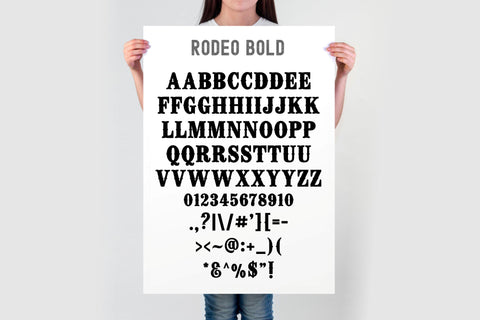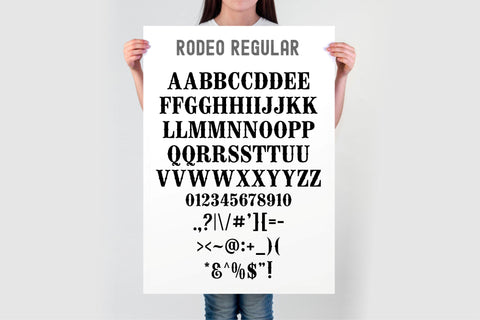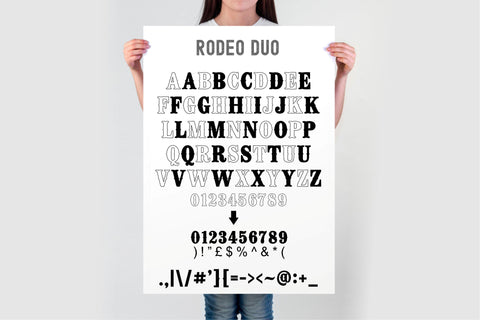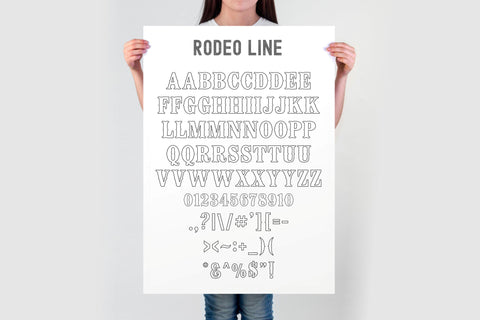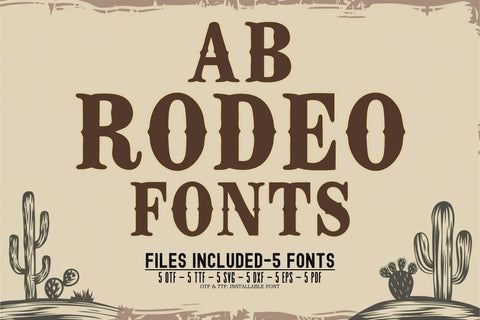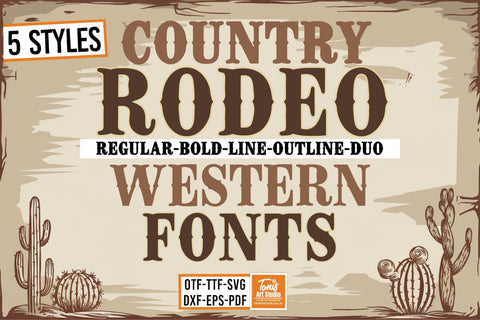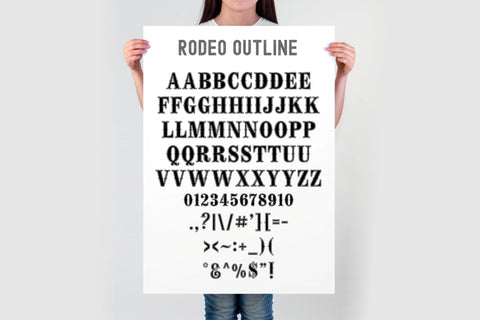
Bring the wild west to life with the "Rodeo Western Font Bundle"! This versatile bundle features 5 unique styles: Regular, Bold, Line, Outline, and Duo, perfect for adding a rustic, cowboy feel to any project. Whether you're designing logos, t-shirts, signage, or crafting with Cricut and Silhouette machines, this font set provides endless possibilities for creating that timeless western look.
The "Rodeo Western Font Bundle" offers a bold, rugged aesthetic with a range of styles to suit different design needs, from standout bold headlines to more subtle, outlined accents. With SVG cut files included, this bundle is perfect for both digital and crafting projects.
5 font styles: Regular, Bold, Line, Outline, and Duo for maximum versatility.
Bold, classic western fonts in 5 styles: Regular, Bold, Line, Outline, Duo.
Perfect For:
Country & Rodeo-Themed Apparel
Event Signage, Posters, and Invitations
Rustic Logos and Branding
DIY Craft Projects, Scrapbooking & Personalized Gifts
Western Party Decorations and Banners